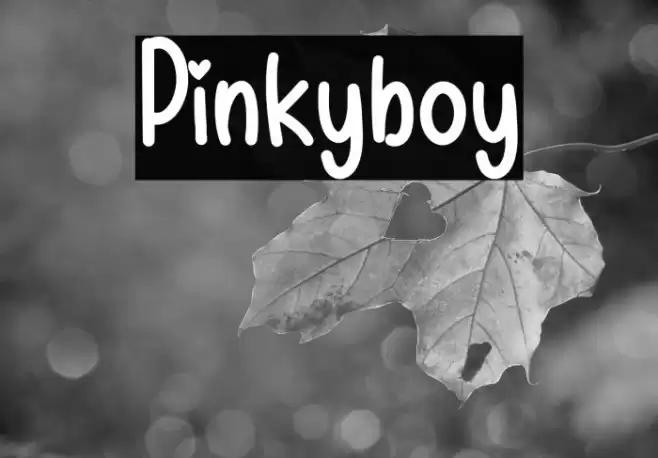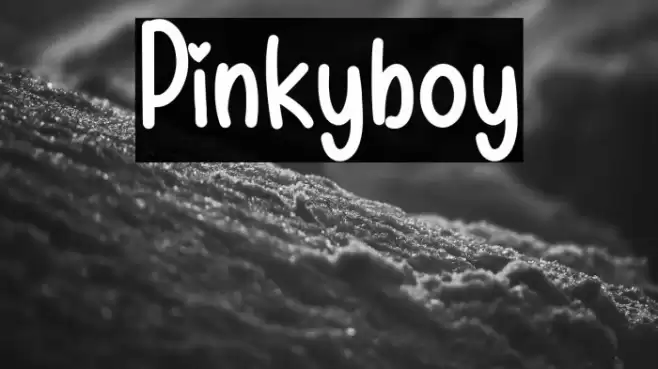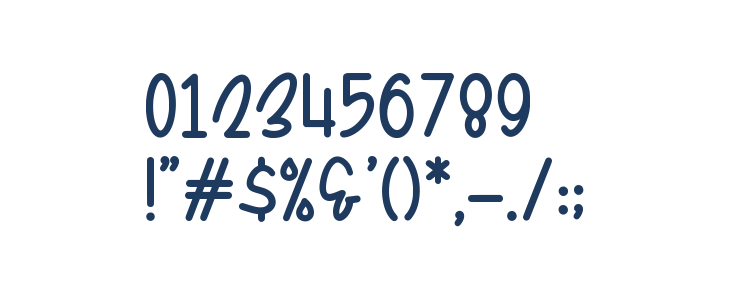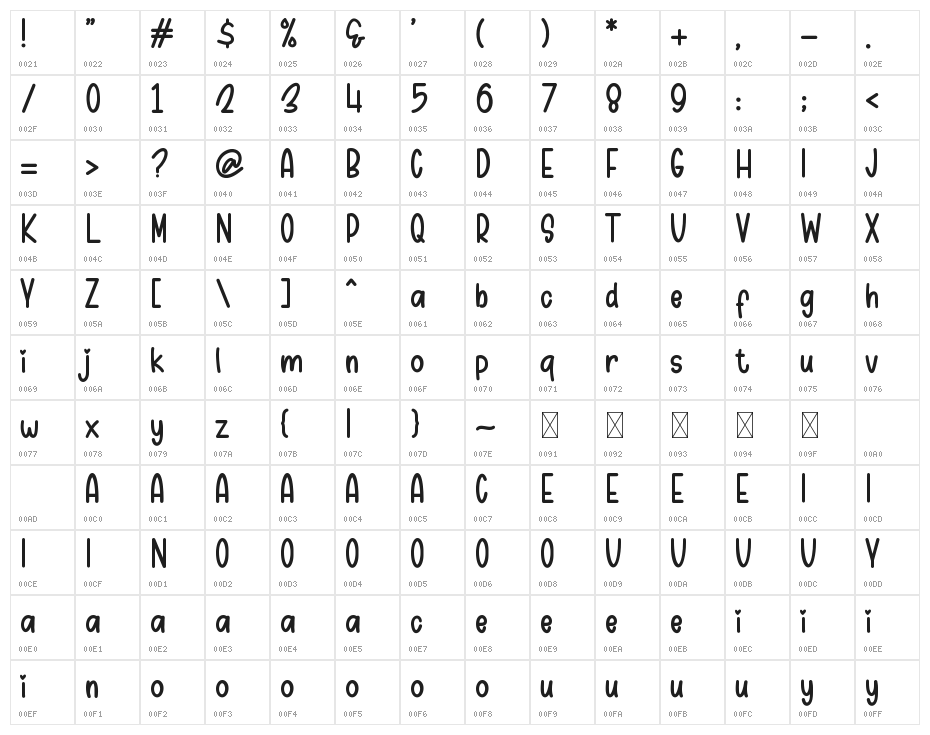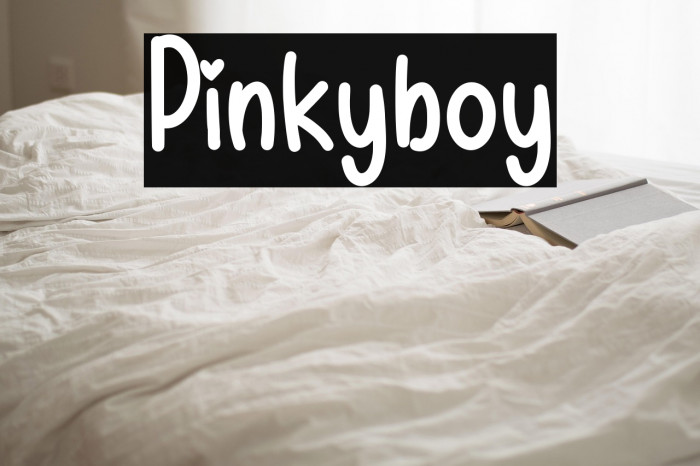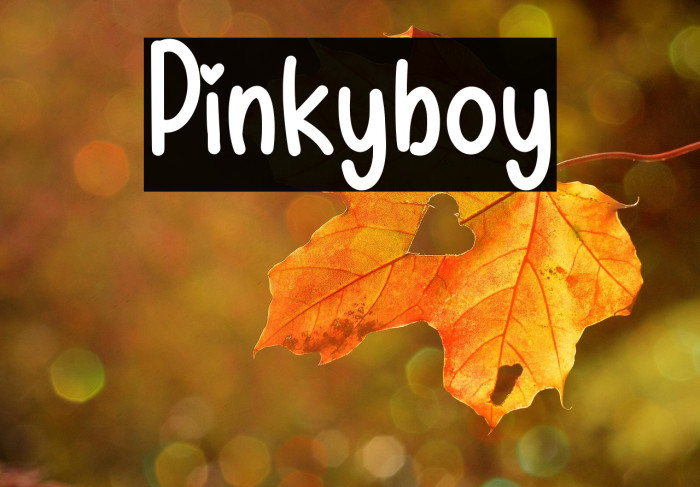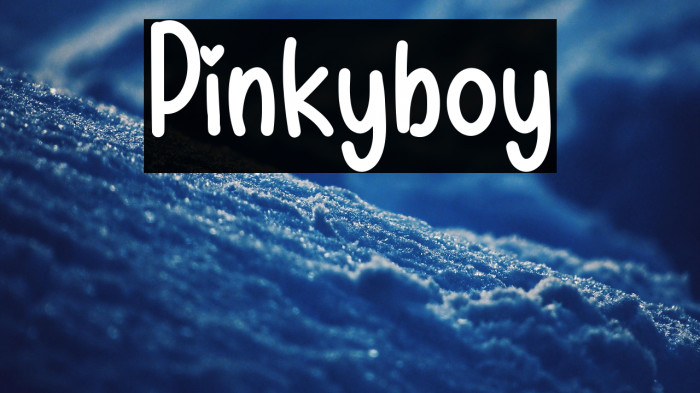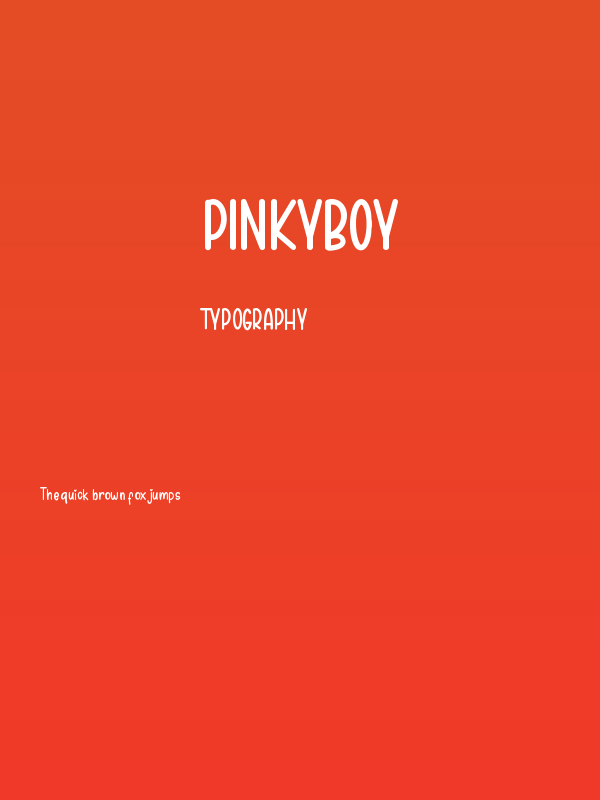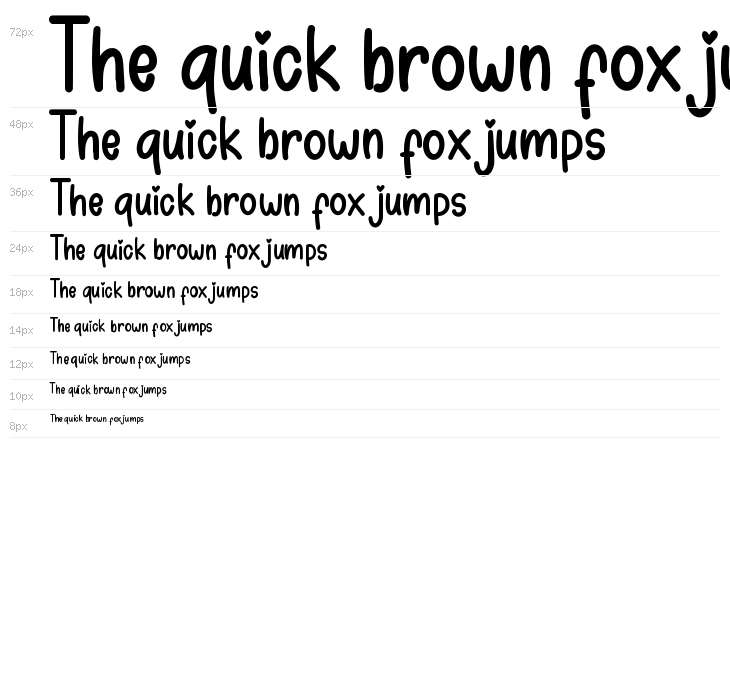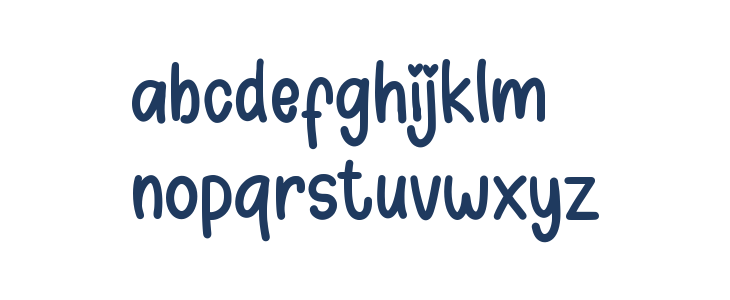
Pinkyboy Font
Pinkyboy Description
This playful and whimsical font features rounded, bold characters with a hand-drawn aesthetic. Each letter has a consistent thickness, giving it a uniform appearance while maintaining a casual and friendly vibe. The uppercase and lowercase letters are distinct yet harmonize well together, making it versatile for various design needs. The numerals and special characters are crafted with the same playful style, ensuring a cohesive look across all text elements. This font's charm lies in its simplicity and approachability, making it ideal for projects that require a fun and engaging tone.
A playful, hand-drawn font with rounded, bold characters from Regular fonts.
- Proposed Projects: Ideal for children's books, playful branding, greeting cards, and social media graphics.
- Overall Style: Playful